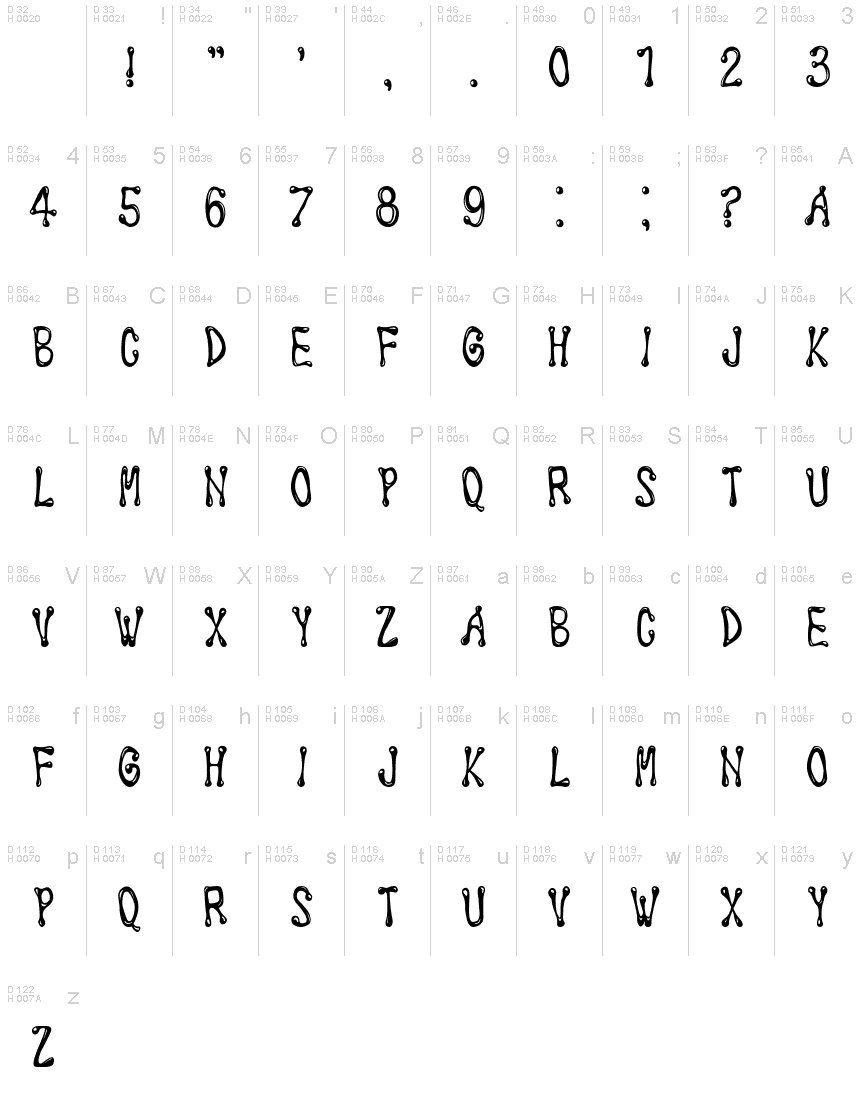
Saint Petersburg Regular
Saint Petersburg is a groovy display font designed by Vladimir Nikolic. Its semi-light weight and condensed width make it perfect for titles, headings, and branding projects that require a touch of retro flair. With its bold curves and playful style, Saint Petersburg adds a touch of fun to any design project. Use it for album covers, posters, or even signage to grab attention and make a statement. This versatile font can be used for both digital and print projects, making it an excellent choice for designers looking to add some personality to their work.